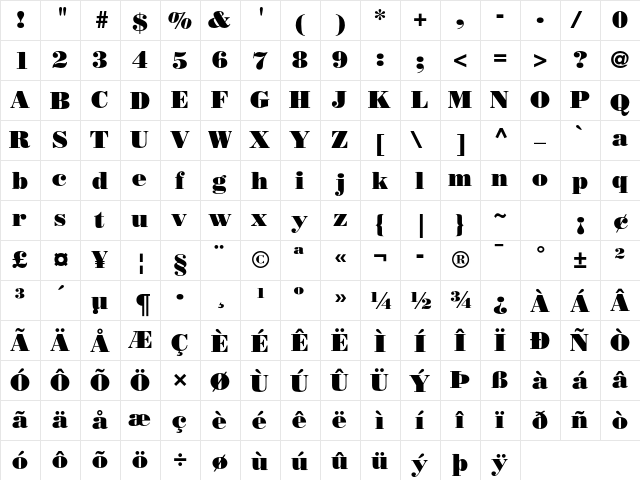
Bodoni Std Poster Font Preview
Bodoni Std Poster
| Designer | Morris Fuller Benton |
Design Context for Bodoni Std Typeface
Bodoni Std is a composed and adaptable typeface that performs quietly and consistently across a wide range of design contexts.